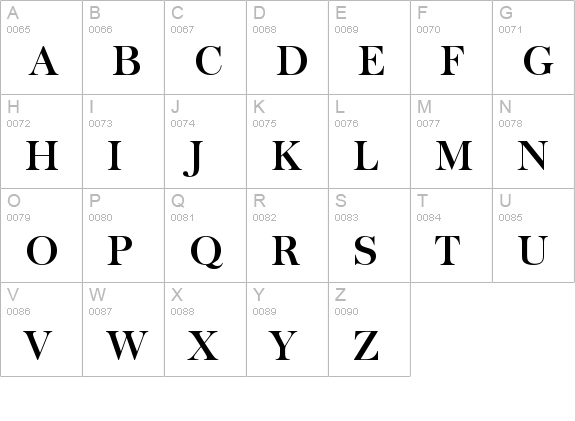
BaskervilleSerial-Bold is a strong, high-contrast variant in the BaskervilleSerial typeface family \xE2\x80\x94 well suited to headlines, attention-grabbing titles, and strong calls-to-action.